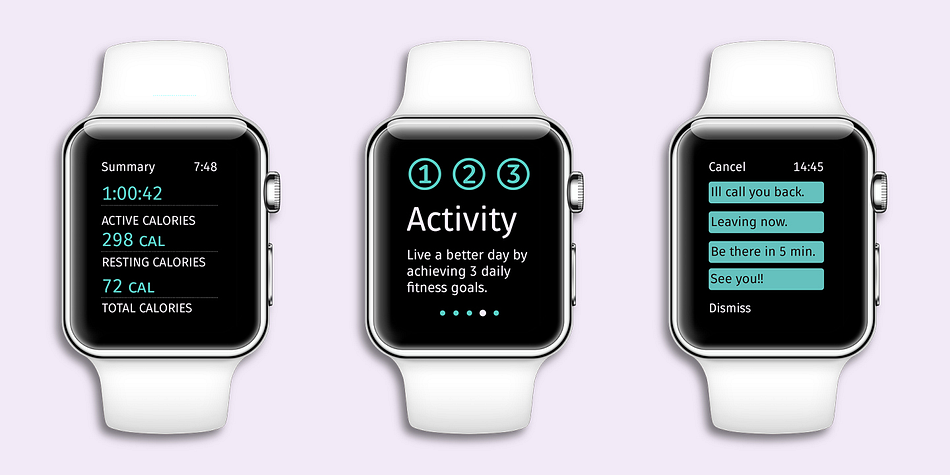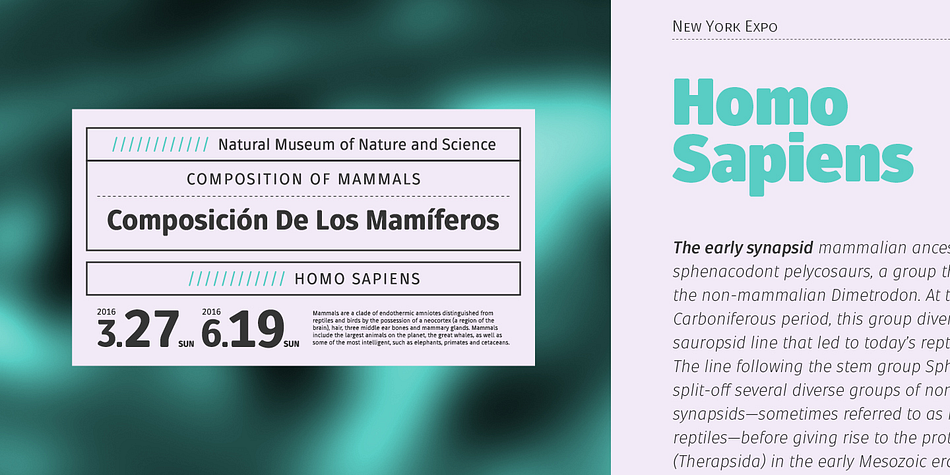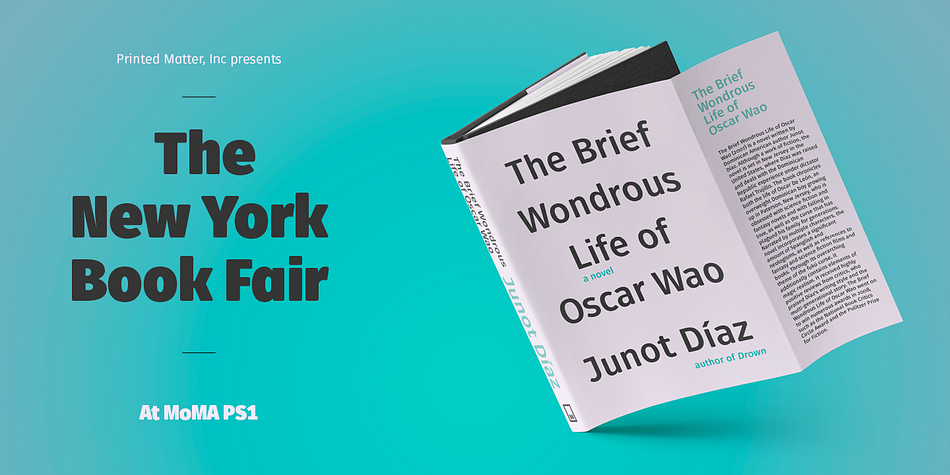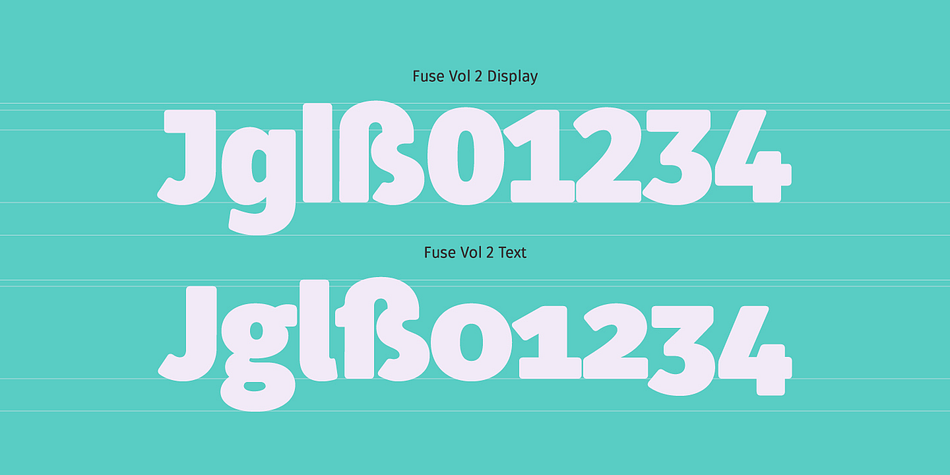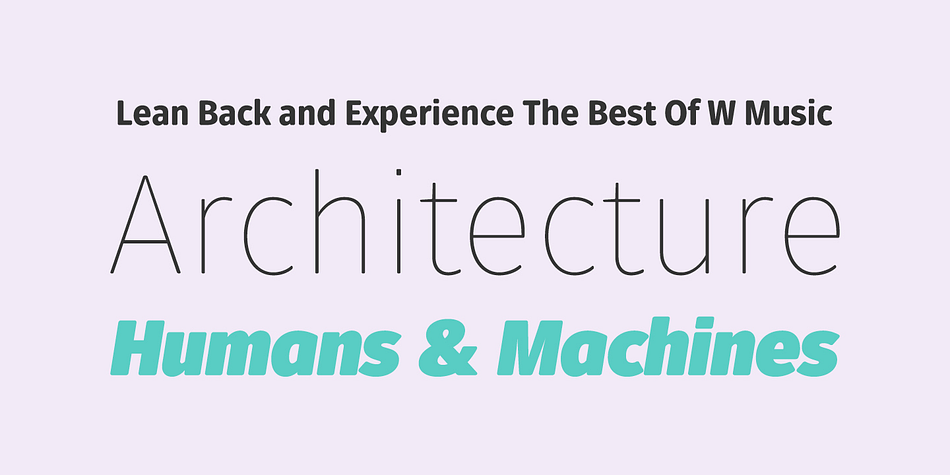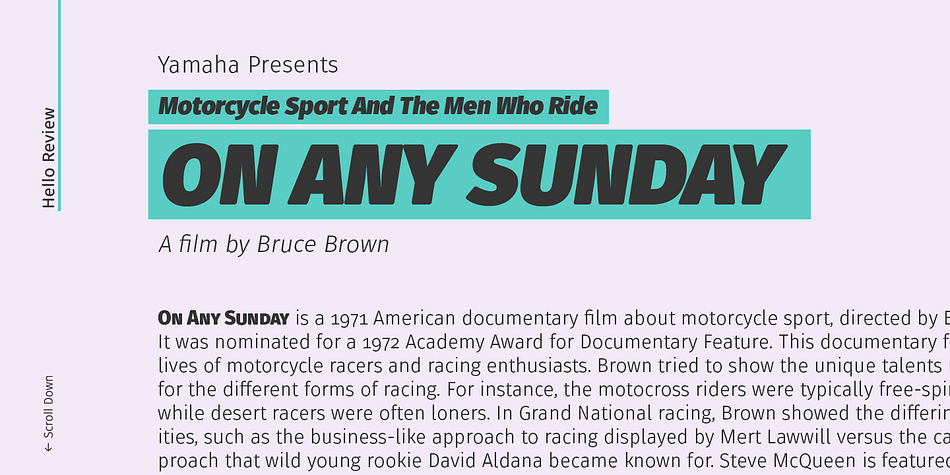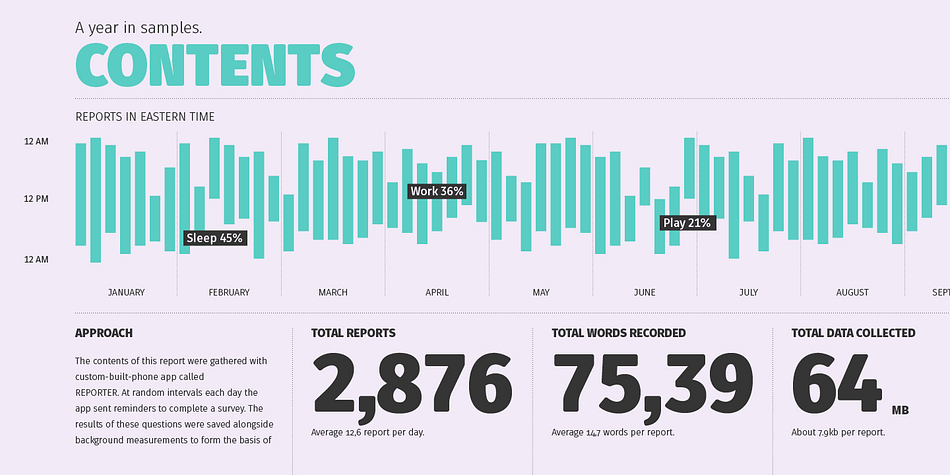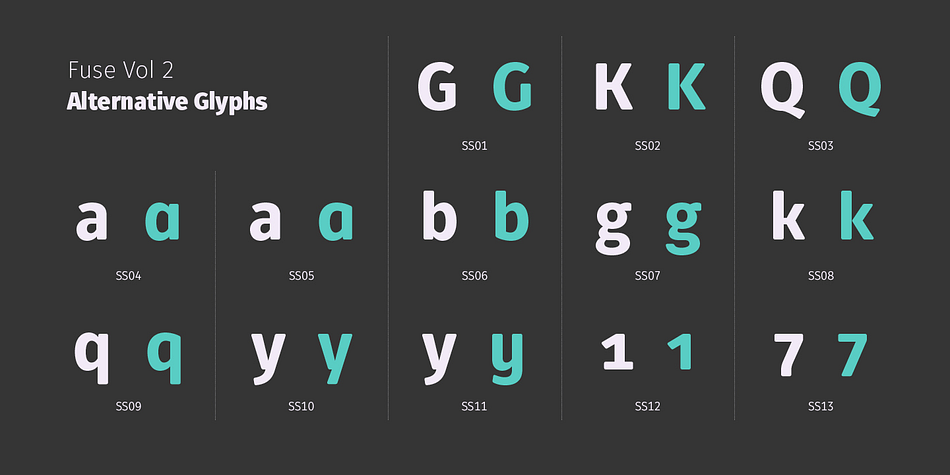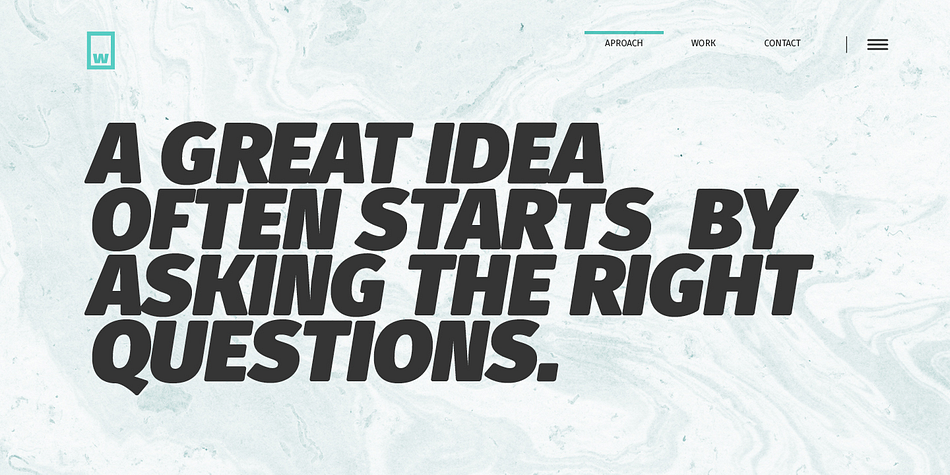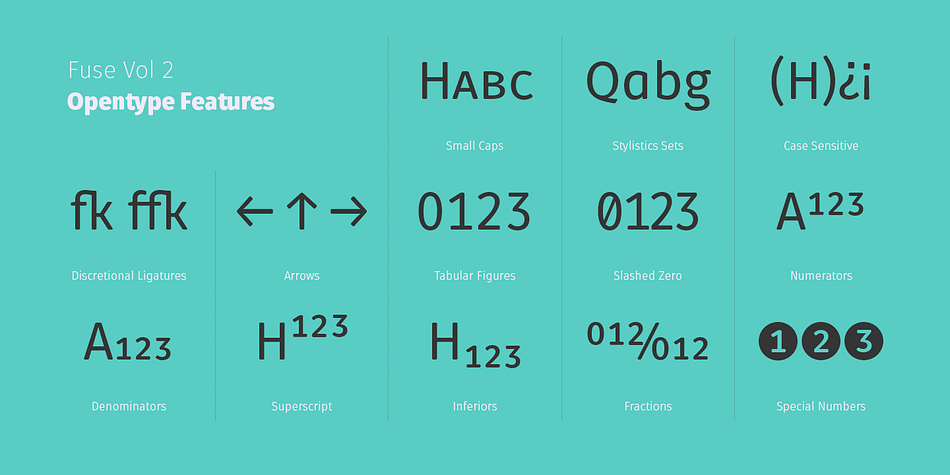
Designed by Salvador Rodríguez and Diego Aravena, Fuse V.2 is a sans serif font family. This typeface has thirty-six styles and was published by W Type Foundry.
Fuse Vol 2 is an extension to our popular Fuse type family. All of the corners of the typeface’s character are rounded, making Fuse Vol 2 friendlier and more amiable variant of the original Fuse.
Designed with a powerful OpenType features in mind, each weight includes alternate characters, ligatures, fractions, special numbers, arrows, extended language support , small caps and many more. Perfectly suited for graphic design and any display/text use. The 32 fonts are part of the larger Fuse super family.
We’re proud to introduce: Fuse Vol 2.